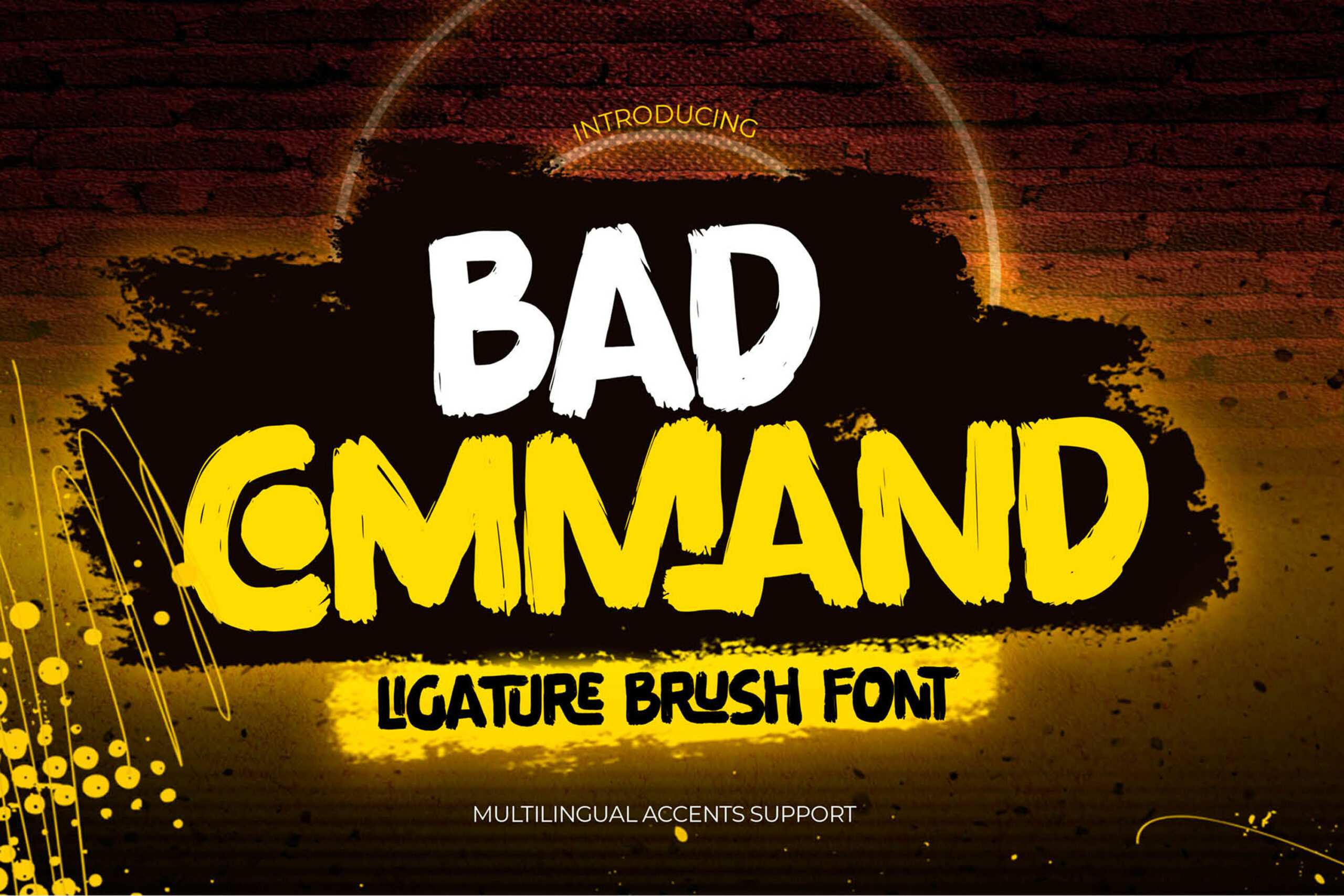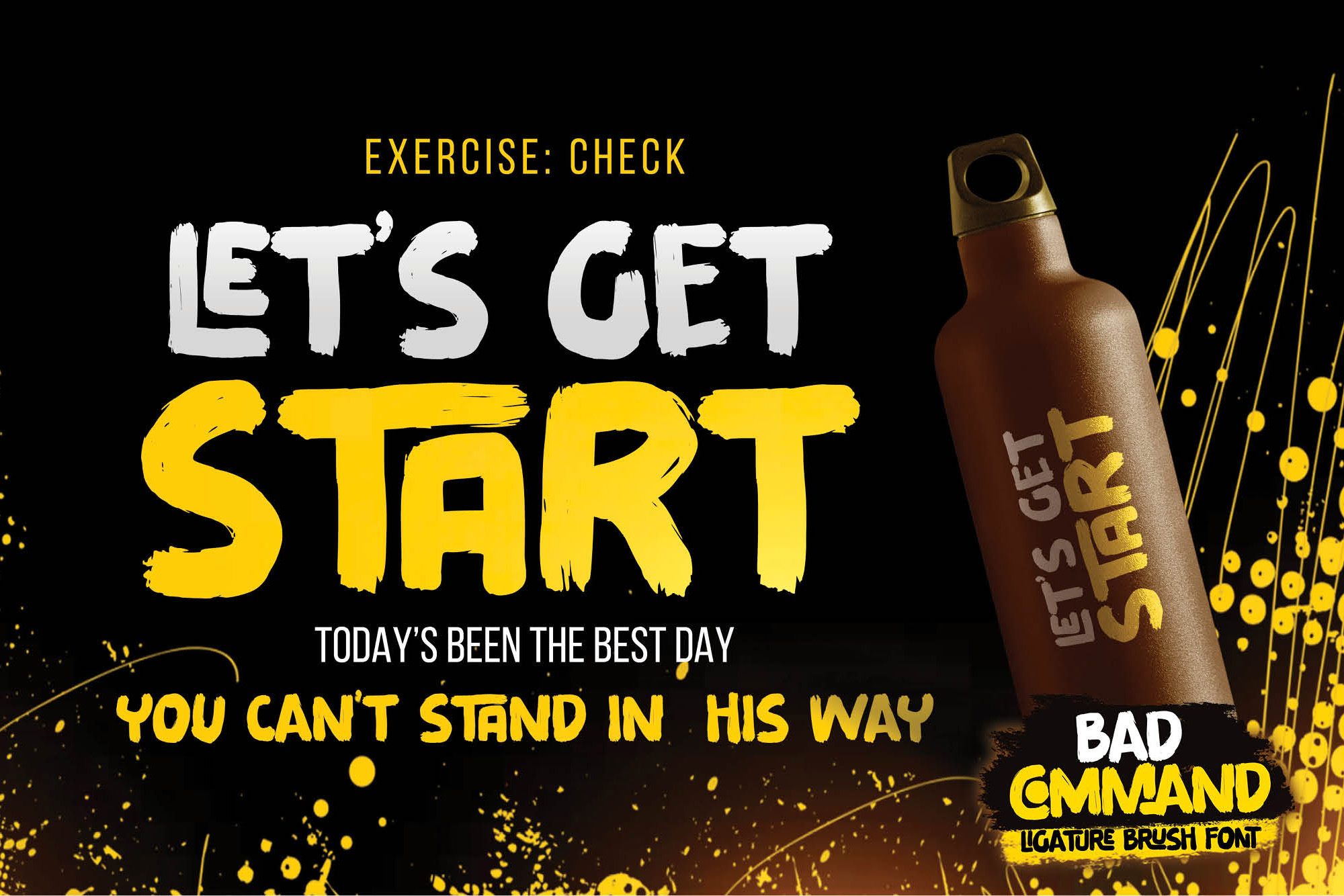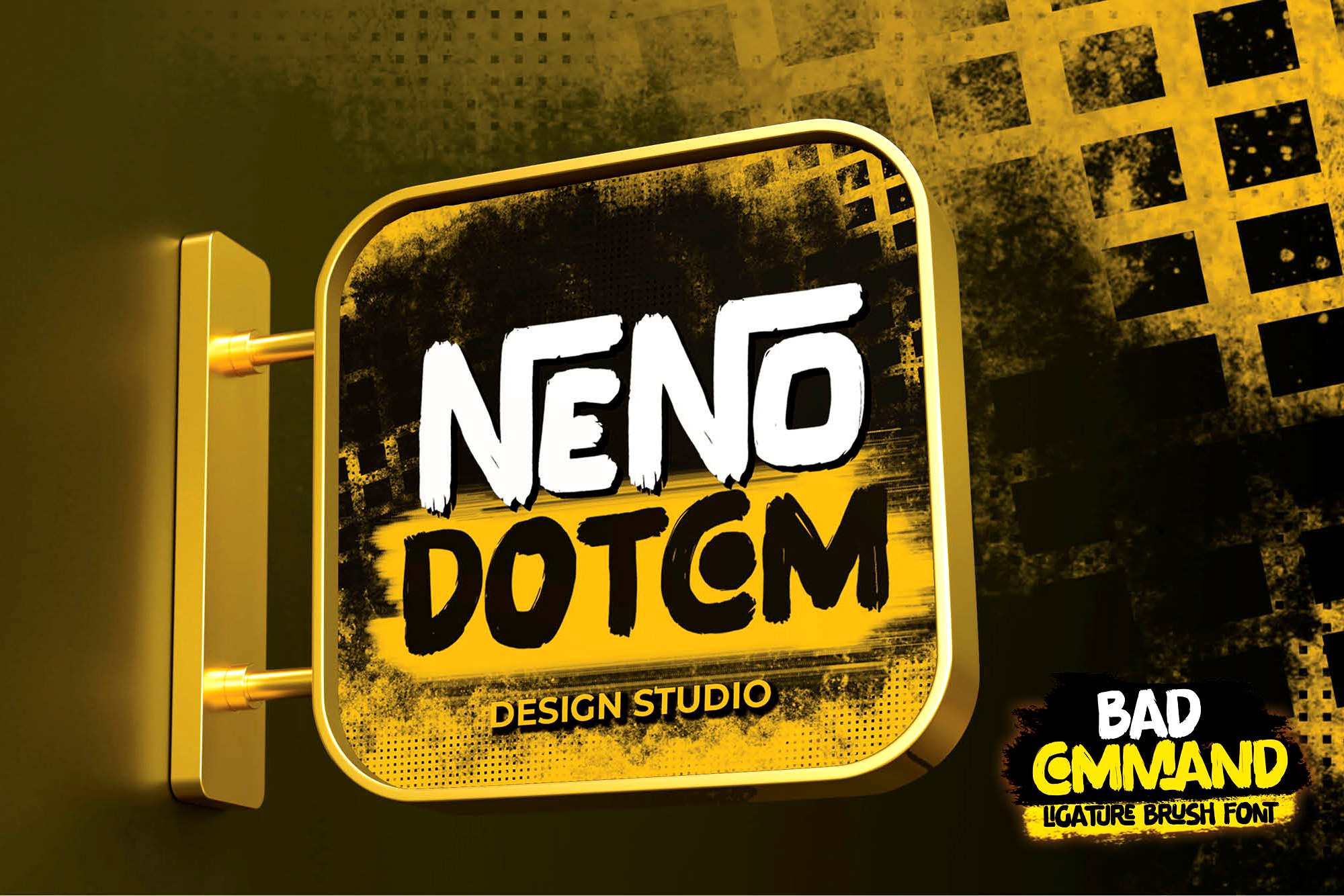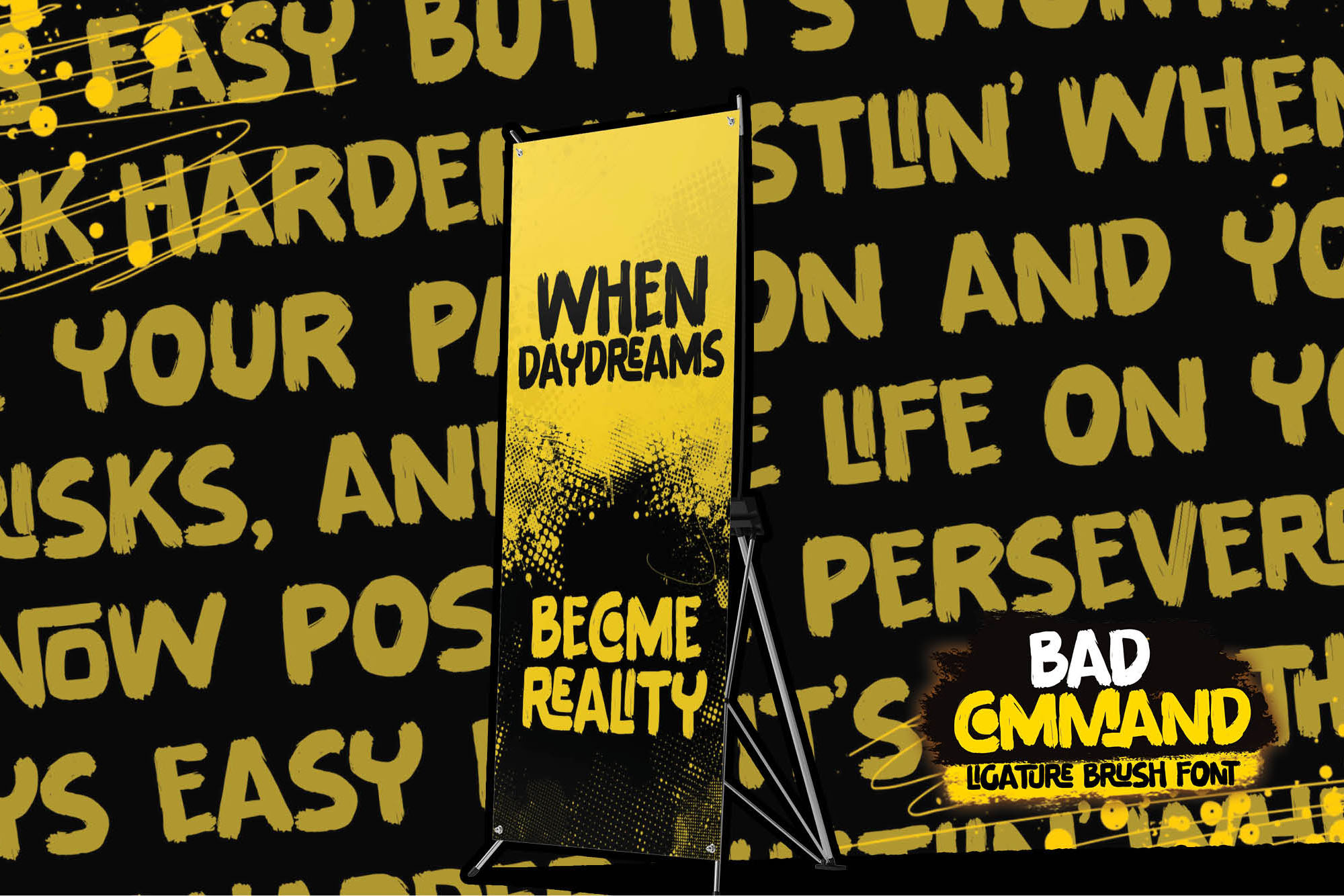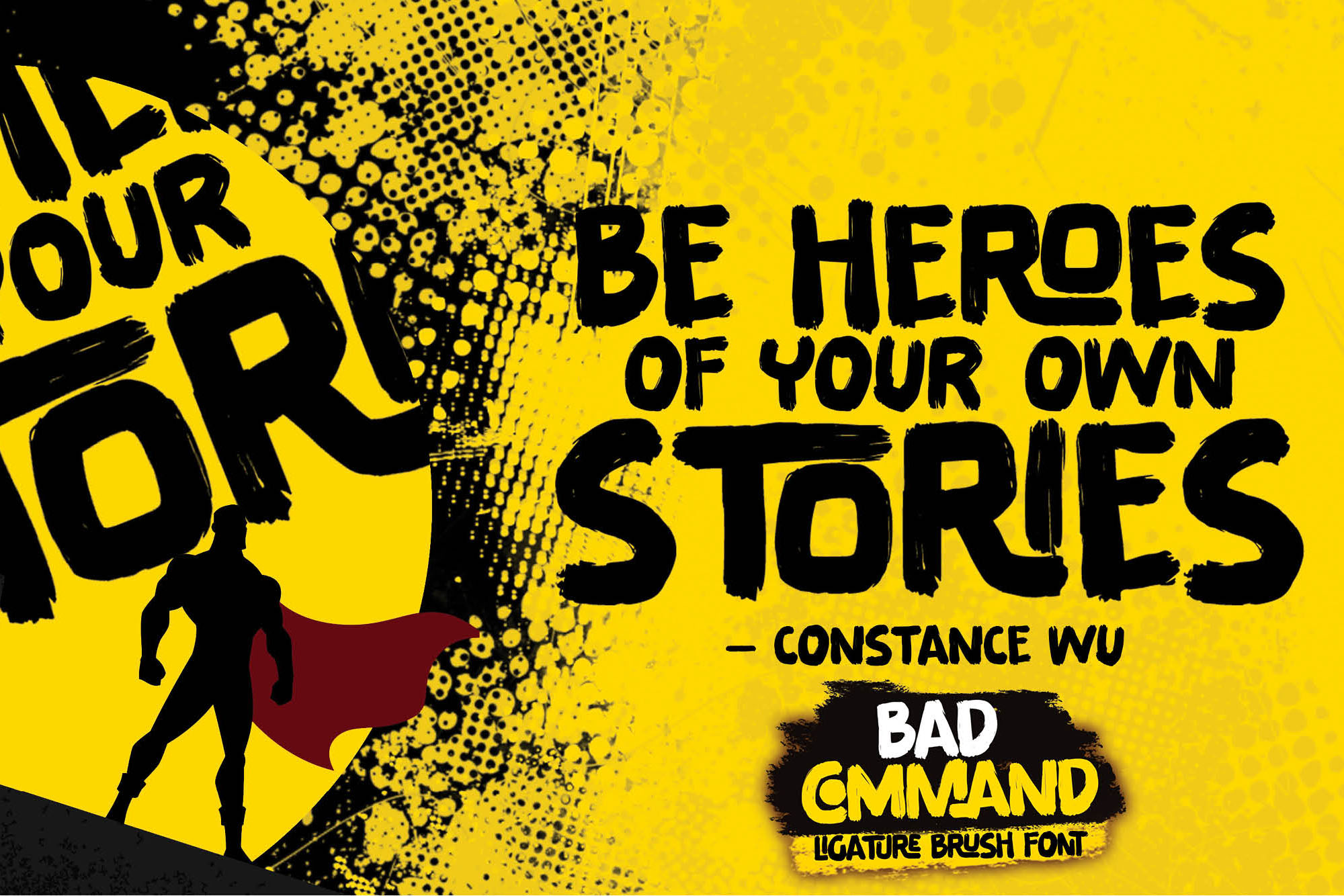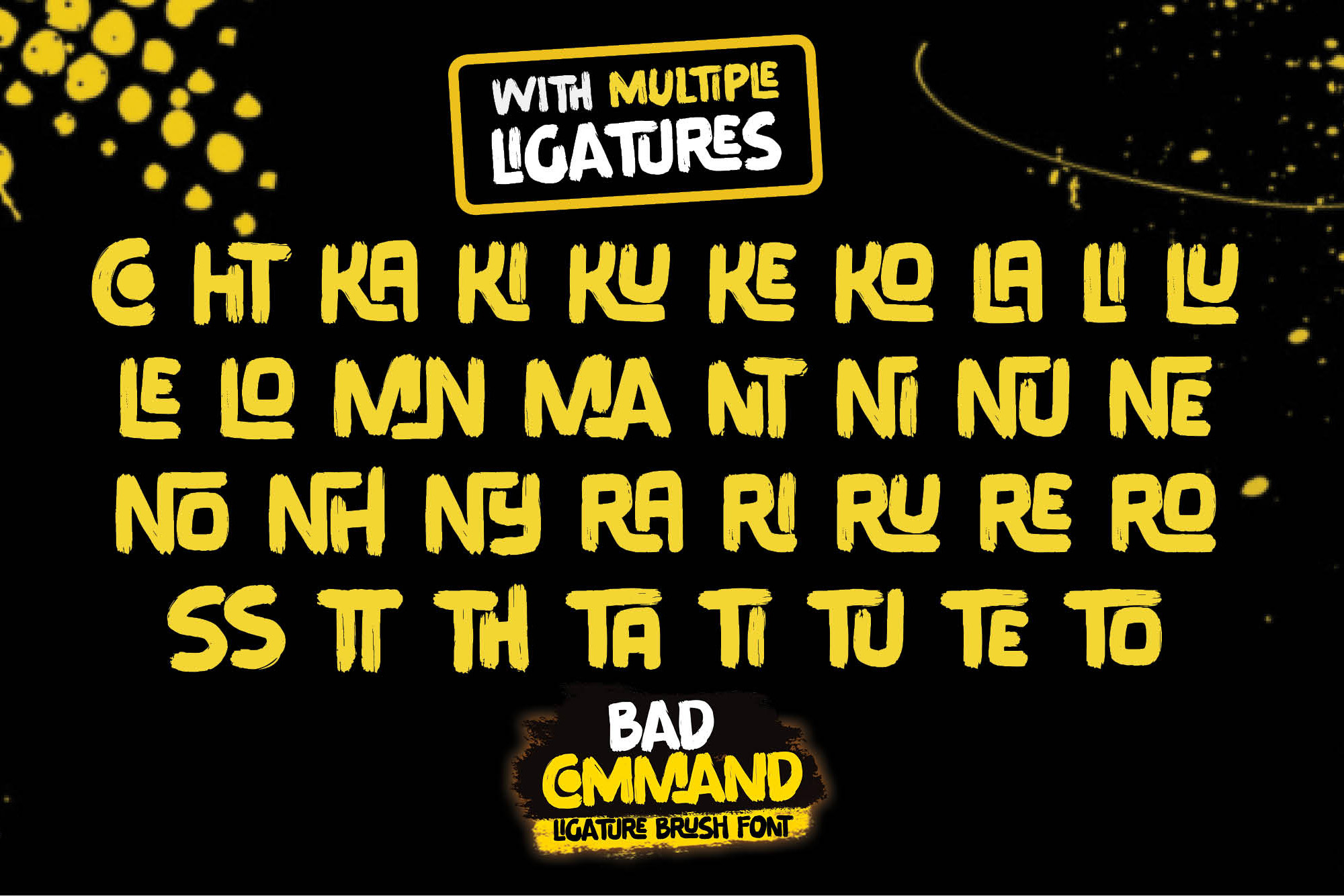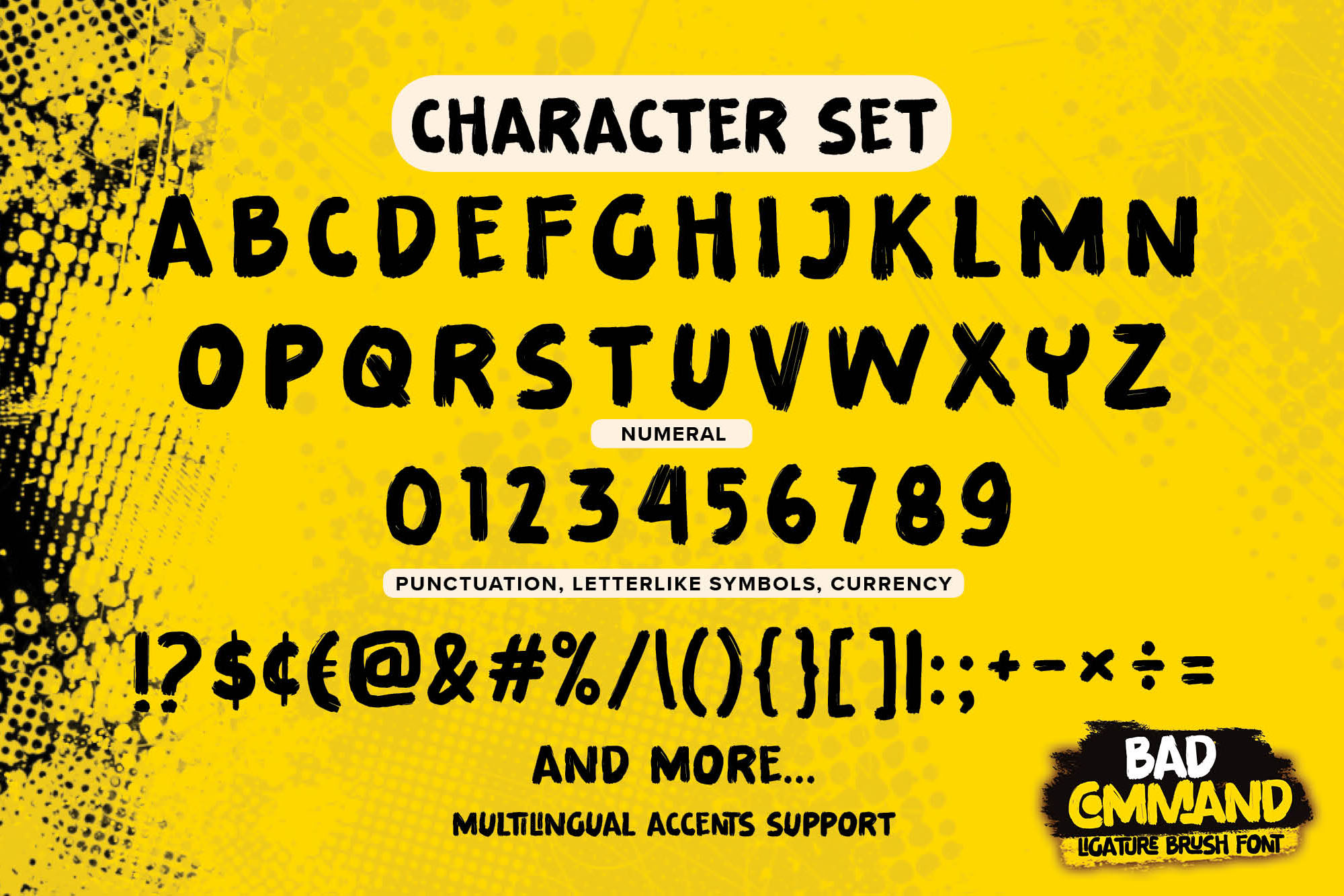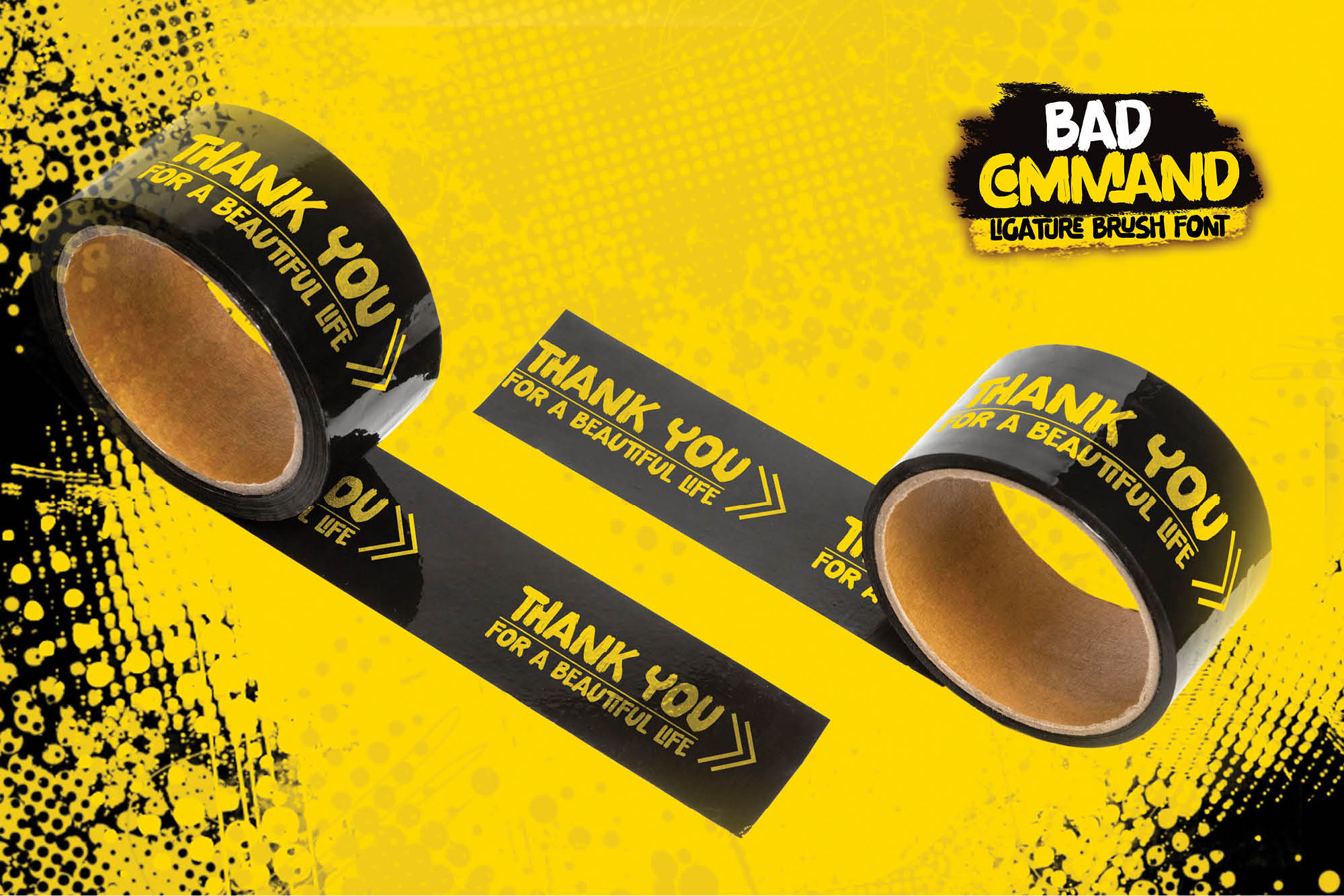
Bad Command – Ligature Brush Font , authentic style and dramatic movement that is written casually and quickly.
The best for poster,project , designs look modern, authentic and fun. It’s perfect for labels, quotes, posters, DIY projects, branding, packaging, greeting cards, websites, photography overlays, signs, scrapbooking, tags and so much more! That is why Bad Command has a cool, and strong characteristic more natural look. You can activate Ligatures glyphs OpenType panel.